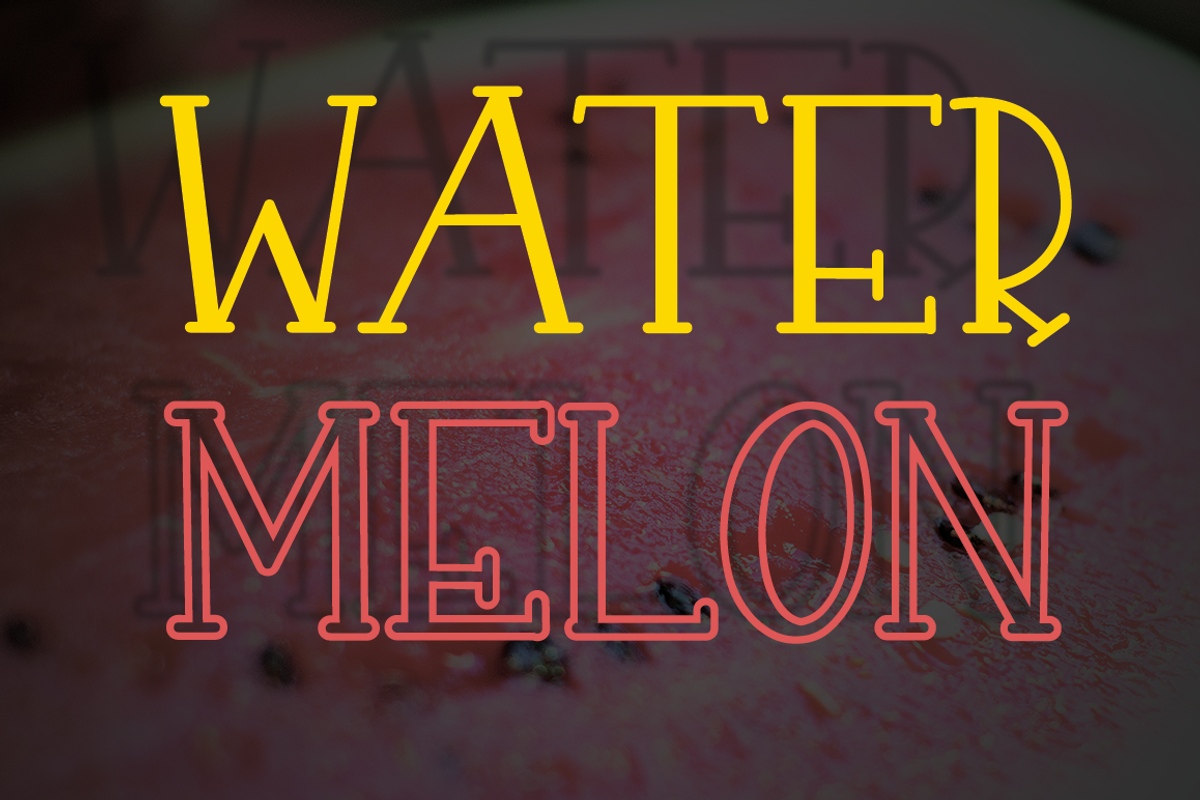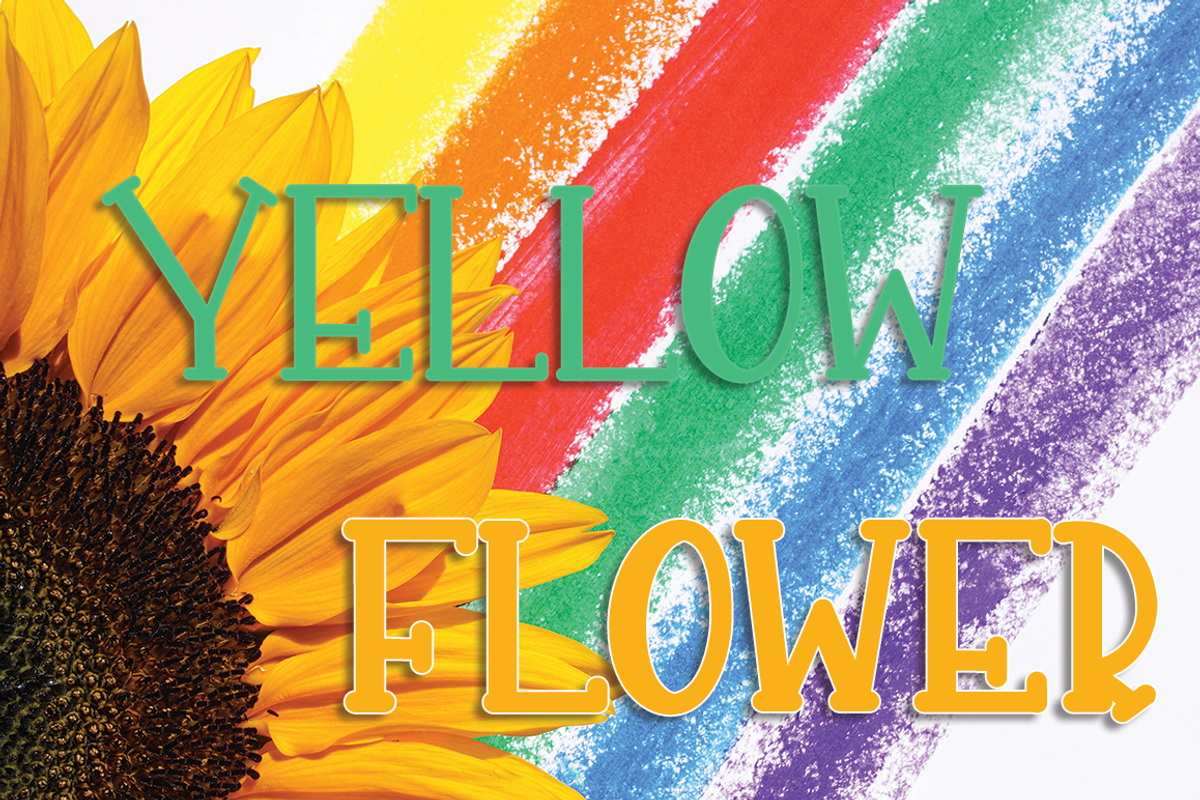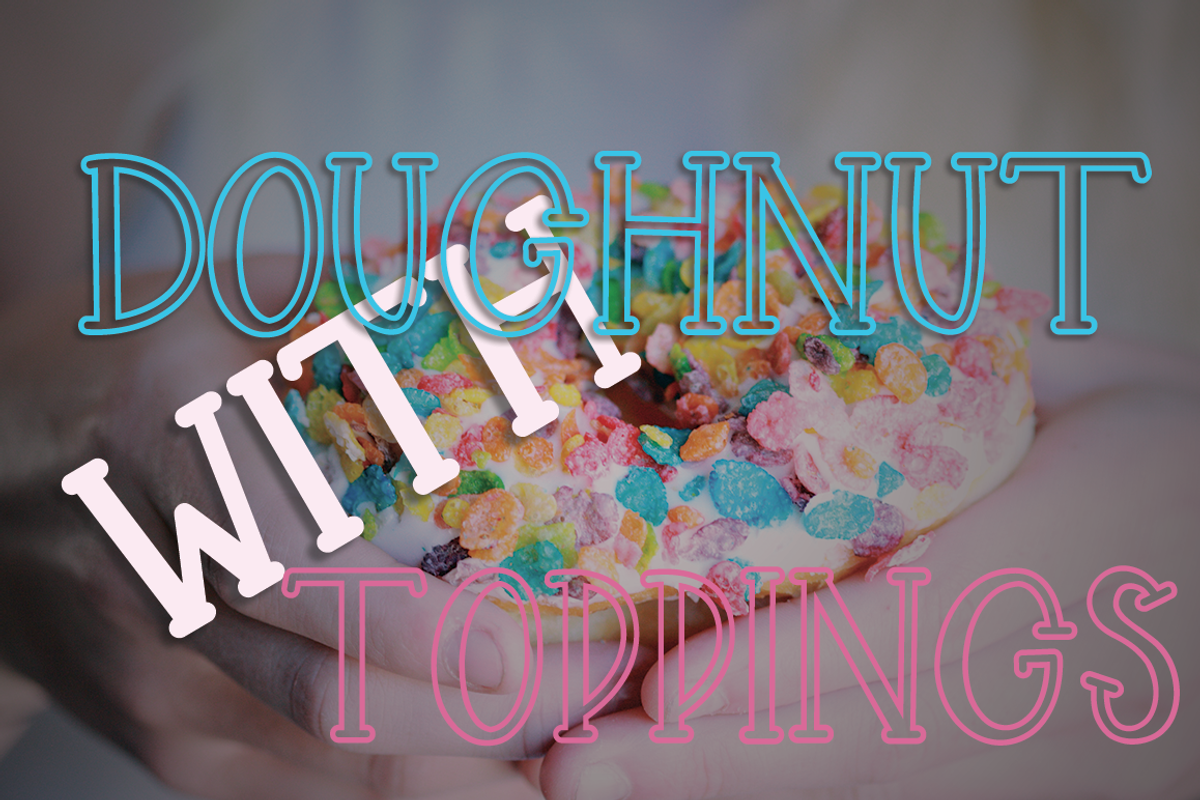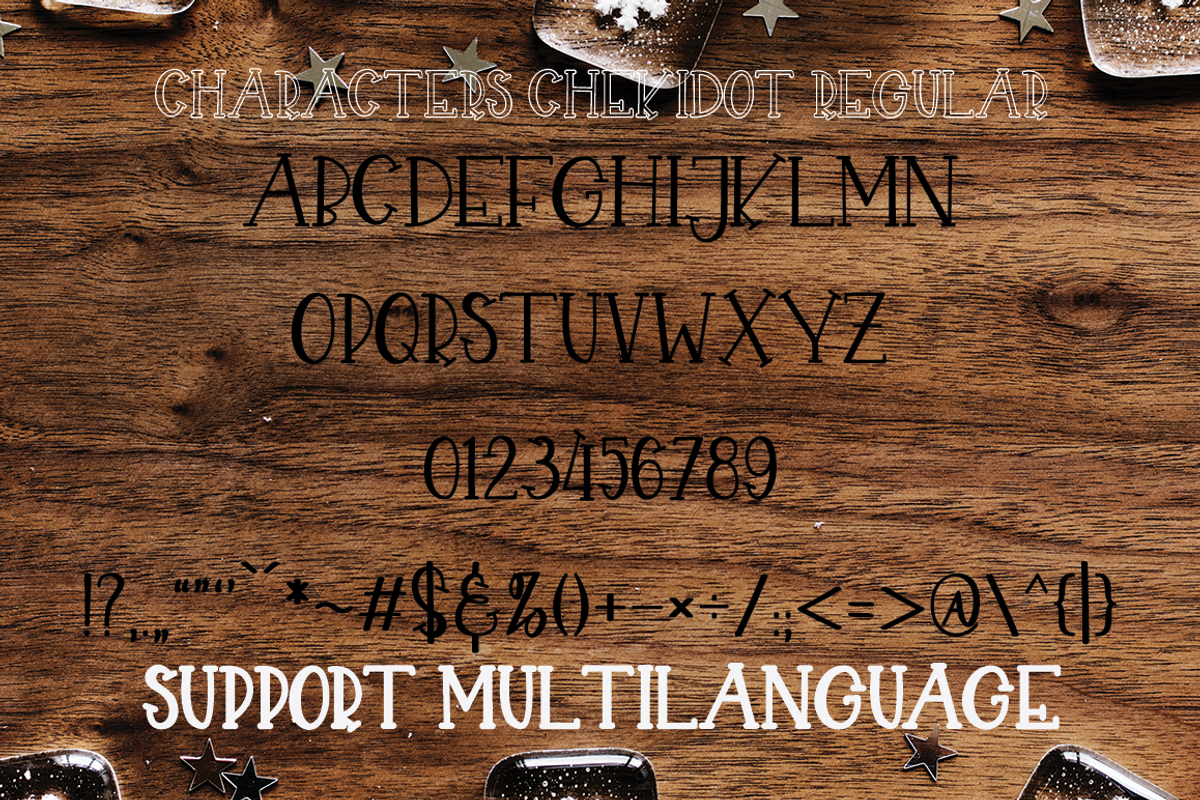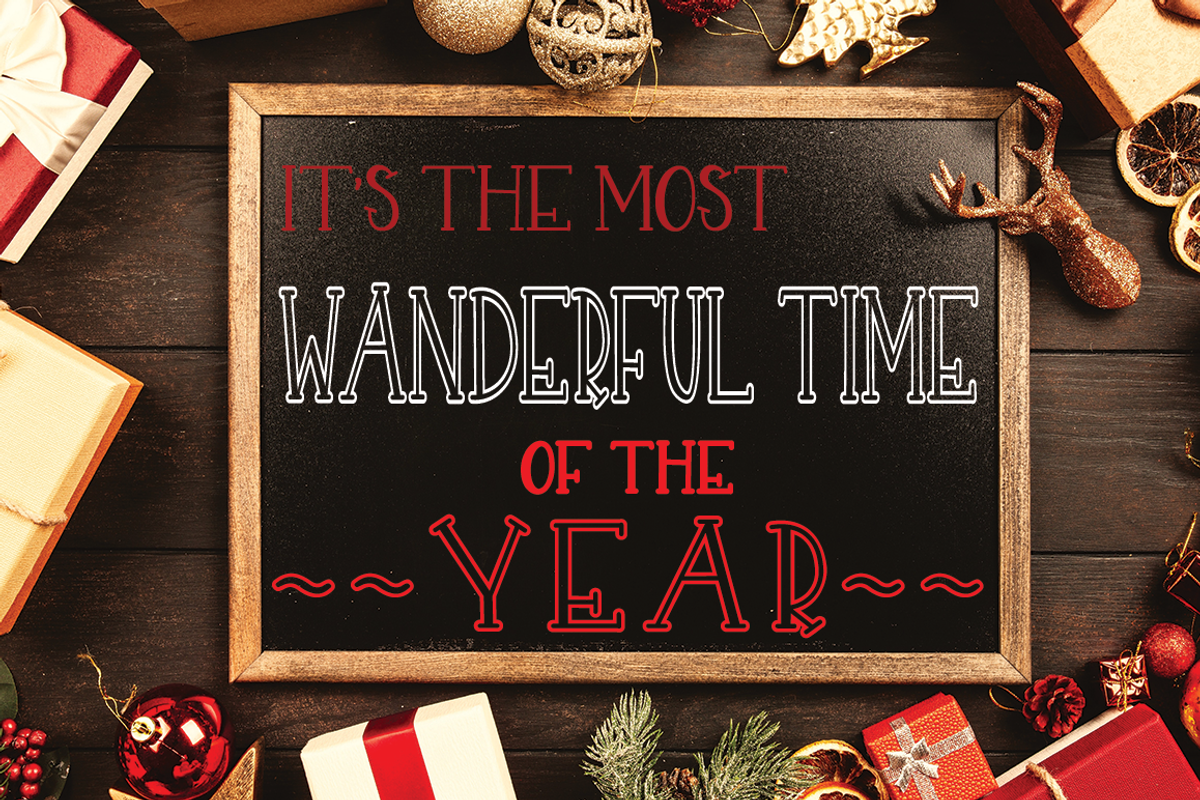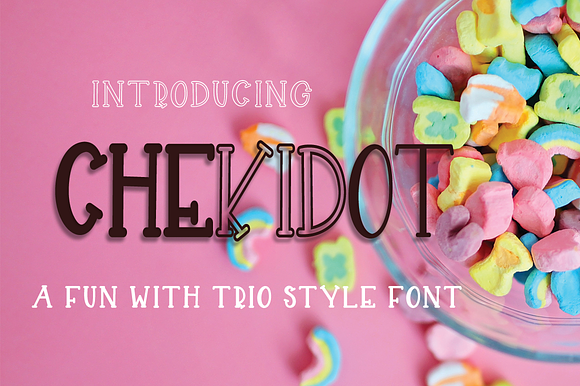
CHEKIDOT -A FUN WITH TRIO STYLE FONT
CHEKIDOT A FUN WITH TRIO STYLE FONT.
Uppercase Only International Languange Support Punctuation & Number PUA Unicode
CHEKIDOT -A FUN WITH TRIO STYLE FONT by Zulkhairi Lettering fits naturally into Branding, posters, packaging, typography.